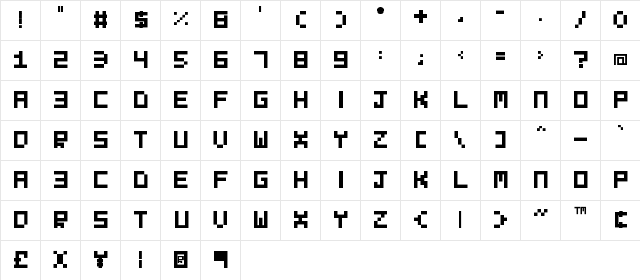
Evilborn Font Regular
Designer: Xebb
Evilborn Font Family
Evilborn Font Regular
Design Context for Evilborn Font
Evilborn Font is a composed and adaptable typeface that performs quietly and consistently across a wide range of design contexts.